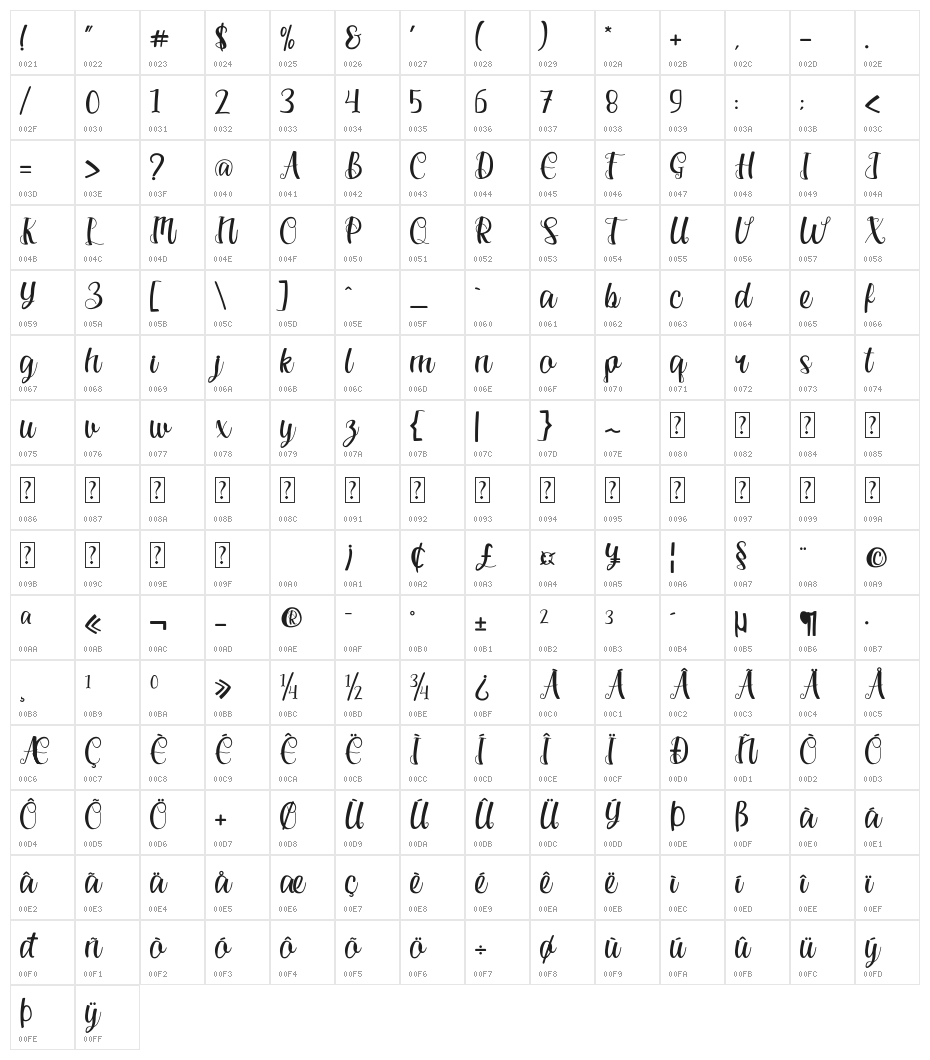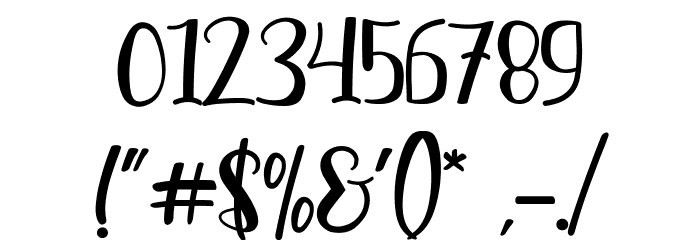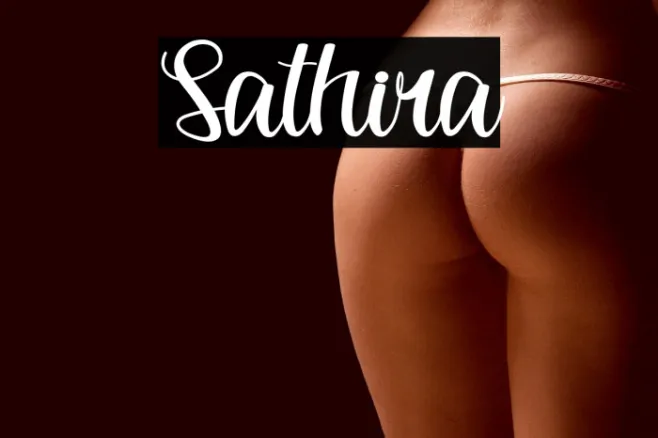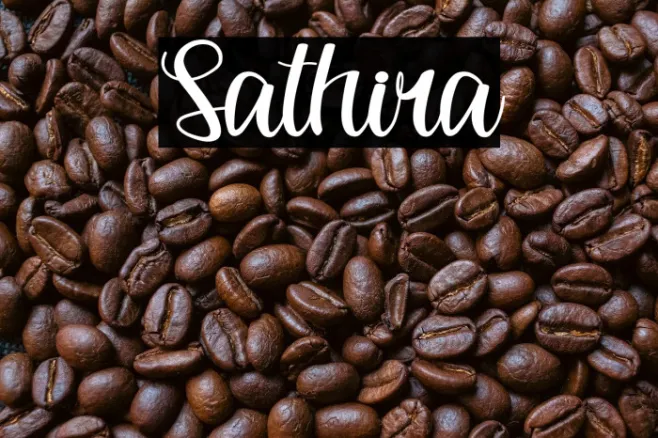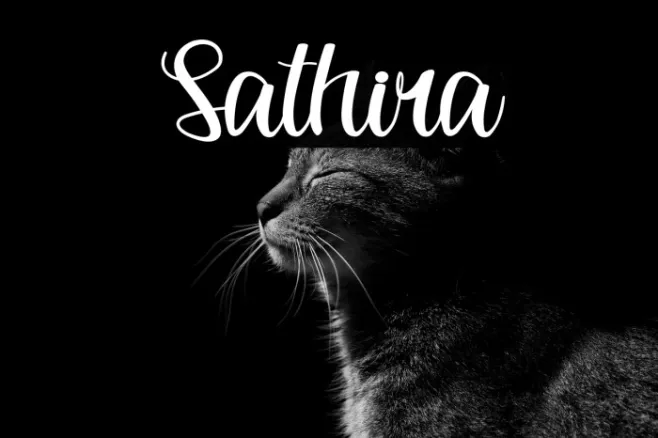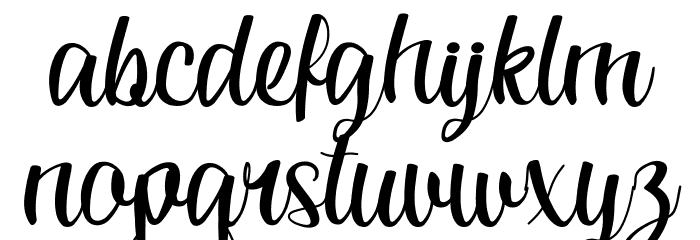
Sathira Font
Sathira Description
This font features an elegant and flowing script style with a modern twist. The uppercase letters are characterized by their tall, slender forms and graceful loops, giving them a sophisticated appearance. The lowercase letters maintain a consistent flow with smooth curves and delicate connections between characters. The numerals are designed to match the overall aesthetic, with a balanced mix of curves and straight lines. Special characters are thoughtfully integrated, maintaining the font's cohesive style. This font is ideal for projects that require a touch of elegance and modernity.
| Proposed Projects | Ideal for wedding invitations, branding, greeting cards, and elegant packaging designs. |